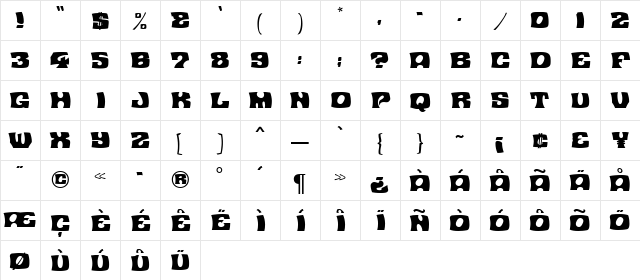
Contest MN Regular Font Preview
Contest MN Regular
Contest MN Regular Font Details
Design Context for Contest MN Typeface
Contest MN is a composed and adaptable typeface that performs quietly and consistently across a wide range of design contexts.